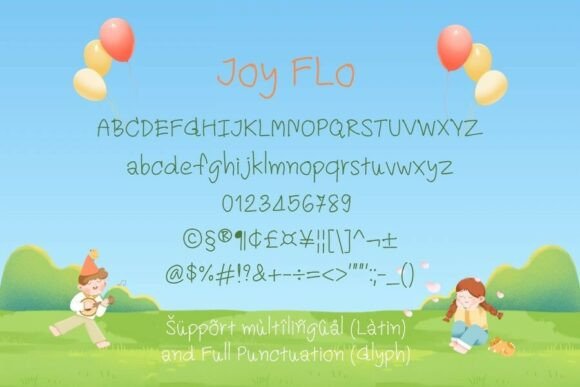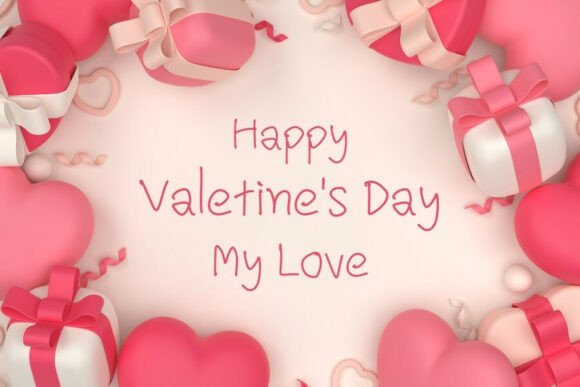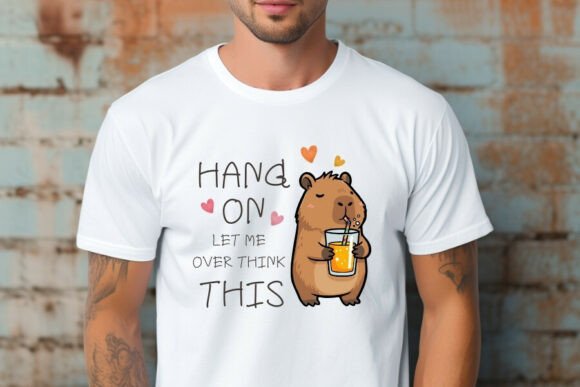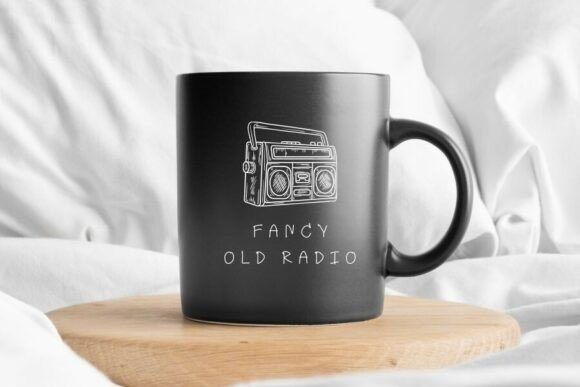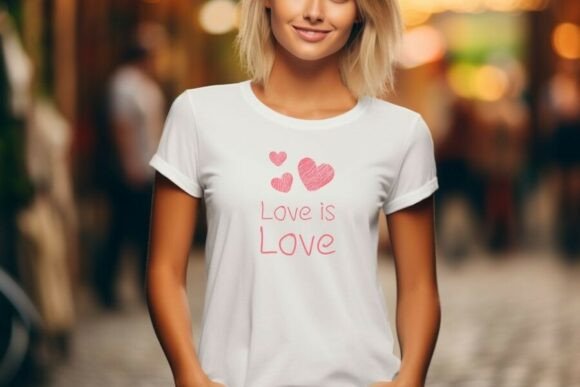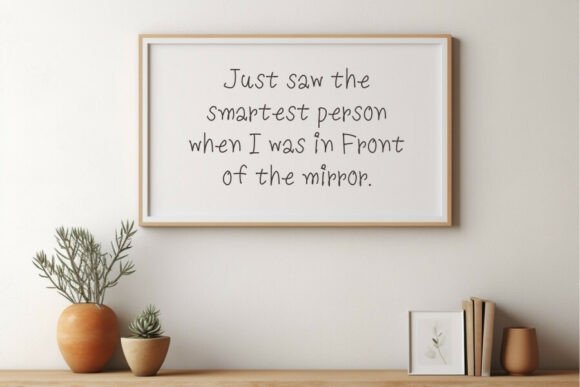
Introduction to Joy Flo Font
Remember the thrill of finally landing a creative project you’ve been dreaming about? The rush of excitement as you begin brainstorming ideas and envisioning the perfect visual identity? For designers, this moment is all too familiar – and it’s exactly why having the right design resources can make all the difference. One such resource that’s been gaining attention lately is the Joy Flo Font, a quirky and playful handwritten font that’s perfect for bringing a touch of whimsy to your next creative project.
With its informal style and casual vibe, the Joy Flo Font is an excellent choice for designers looking to add some personality to their designs. Whether you’re working on a blog, social media campaign, or marketing materials, this high-quality font is sure to bring a smile to your audience’s faces. And the best part? It’s available for a free download, making it an accessible design resource for creatives of all levels.
Key Features of Joy Flo Font
- Unique, hand-drawn style with a transparent background for flexibility in design.
- Includes a wide range of characters, including uppercase and lowercase letters, numbers, and symbols.
- Perfect for use in graphic design, digital art, and other creative projects where a playful, whimsical feel is desired.
Honest Review: Joy Flo Font
As a designer, I’m always on the lookout for high-quality design resources to elevate my creative projects. The Joy Flo Font caught my attention with its playful and whimsical vibe, making it a great fit for projects that require a touch of joy and sophistication.
Here are some things that work well with the Joy Flo Font:
- ✨ The font’s transparent background makes it easy to layer with other design elements, creating a seamless look.
- ✨ The font’s high-quality design ensures that it looks great at various font sizes and resolutions.
- ⚠️ The font’s limited character set may not be suitable for projects that require a wide range of characters, such as documents or books.
- ⚠️ Some users may find the font’s playful style too casual for formal or professional projects.
Overall, I’m impressed with the Joy Flo Font’s unique design and versatility. While it may not be suitable for every project, it’s a great addition to any designer’s toolkit, especially for creative projects that require a touch of joy and whimsy.
How to Use Joy Flo Font
The Joy Flo Font is a high-quality, free design resource ideal for creative projects that require a unique and stylish touch. This font features a transparent background, making it easy to integrate into various design elements.
Tips for Getting the Most Out of Joy Flo Font
1. Experiment with different font sizes and styles to create visual interest.
2. Use the font in combination with other design elements to create a cohesive look.
3. Take advantage of the transparent background to create layered designs.
The Joy Flo Font is ideal for various creative projects, including:
- Marketing materials and brochures
- Blog posts and social media graphics
Alternatives to Joy Flo Font
Pacifico is a high-quality script font perfect for design projects that require a touch of elegance. It’s ideal for wedding invitations, branding, and other creative projects. The Pacifico font features a smooth, cursive design and a transparent background, making it easy to overlay on any image or background.
Compared to Joy Flo Font, Pacifico has a more refined and sophisticated look. While Joy Flo Font is great for casual, playful designs, Pacifico is better suited for formal or upscale projects.